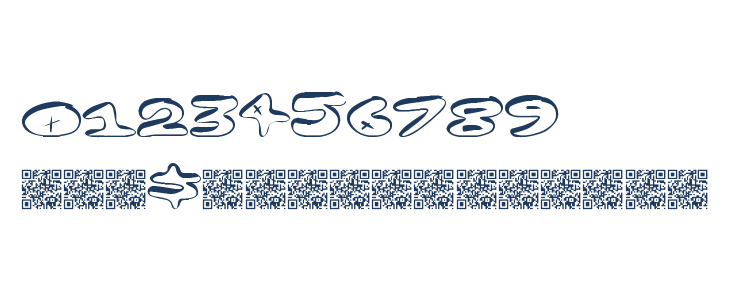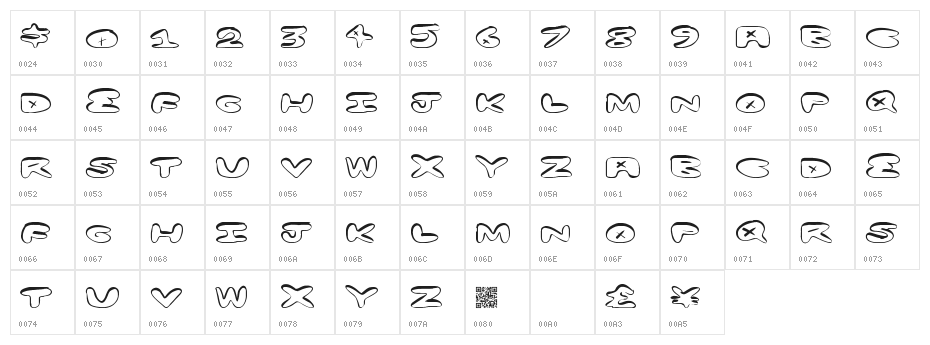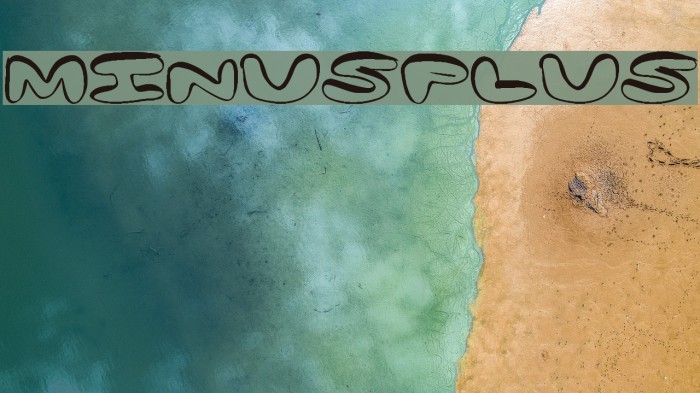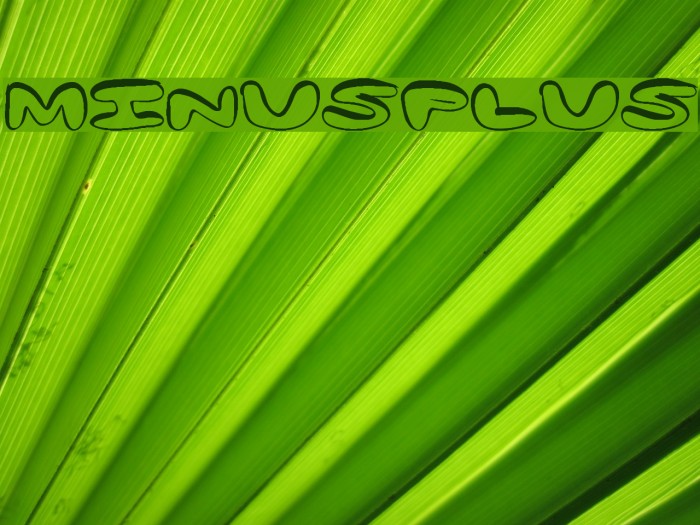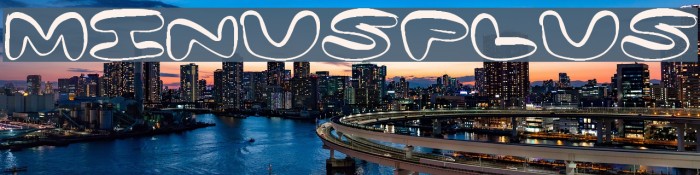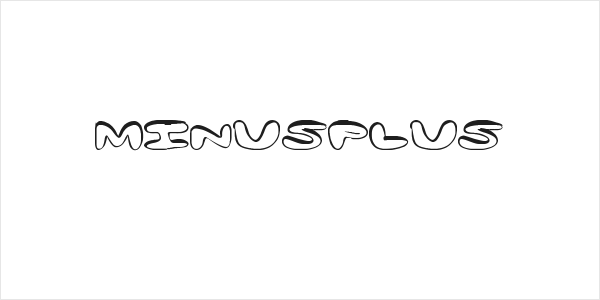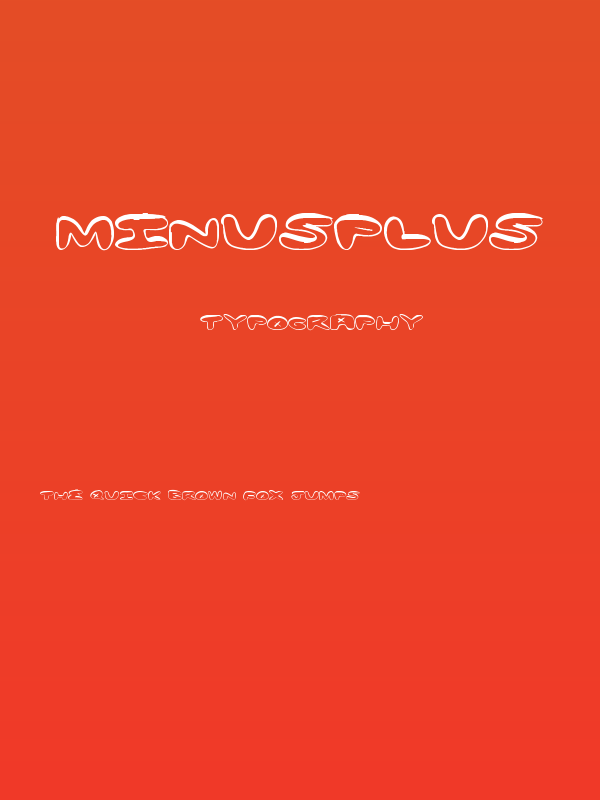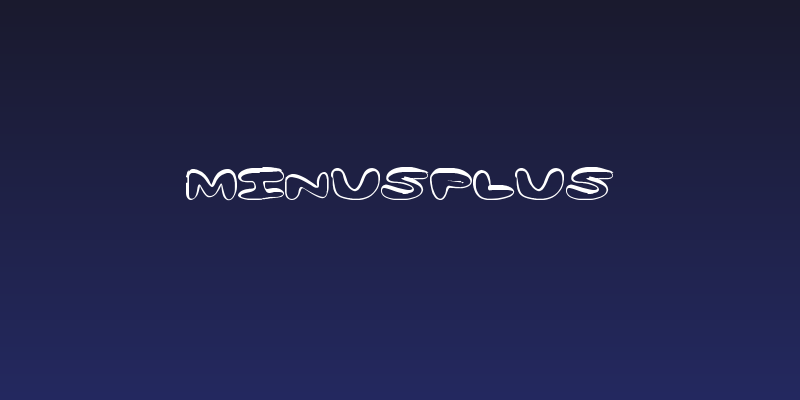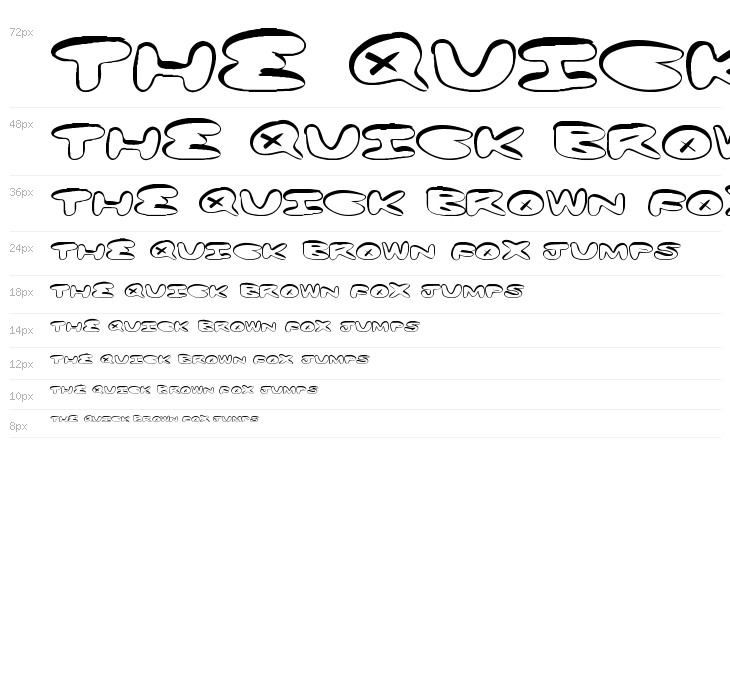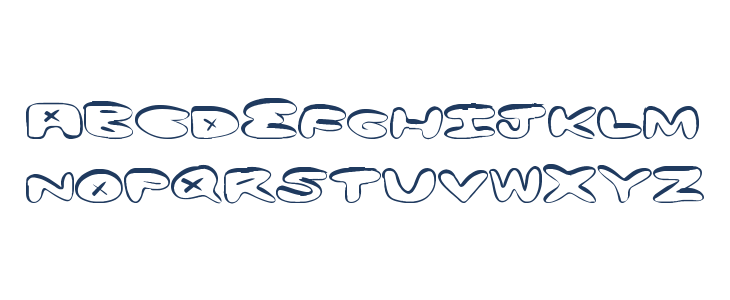
MinusPlus Font
MinusPlus Description
This playful and bold font features a unique, cartoonish style with thick, rounded edges and a hand-drawn appearance. Each character is outlined, giving it a three-dimensional look, and the letters are slightly irregular, adding to the whimsical feel. The font includes both uppercase and lowercase letters, numbers, and a selection of special characters. Its distinctive style makes it stand out, perfect for creative and informal projects that require a fun and engaging typeface.
| Overall Style | Playful, Cartoonish |
| Proposed Projects | Ideal for children's books, comic strips, playful branding, and creative posters. |